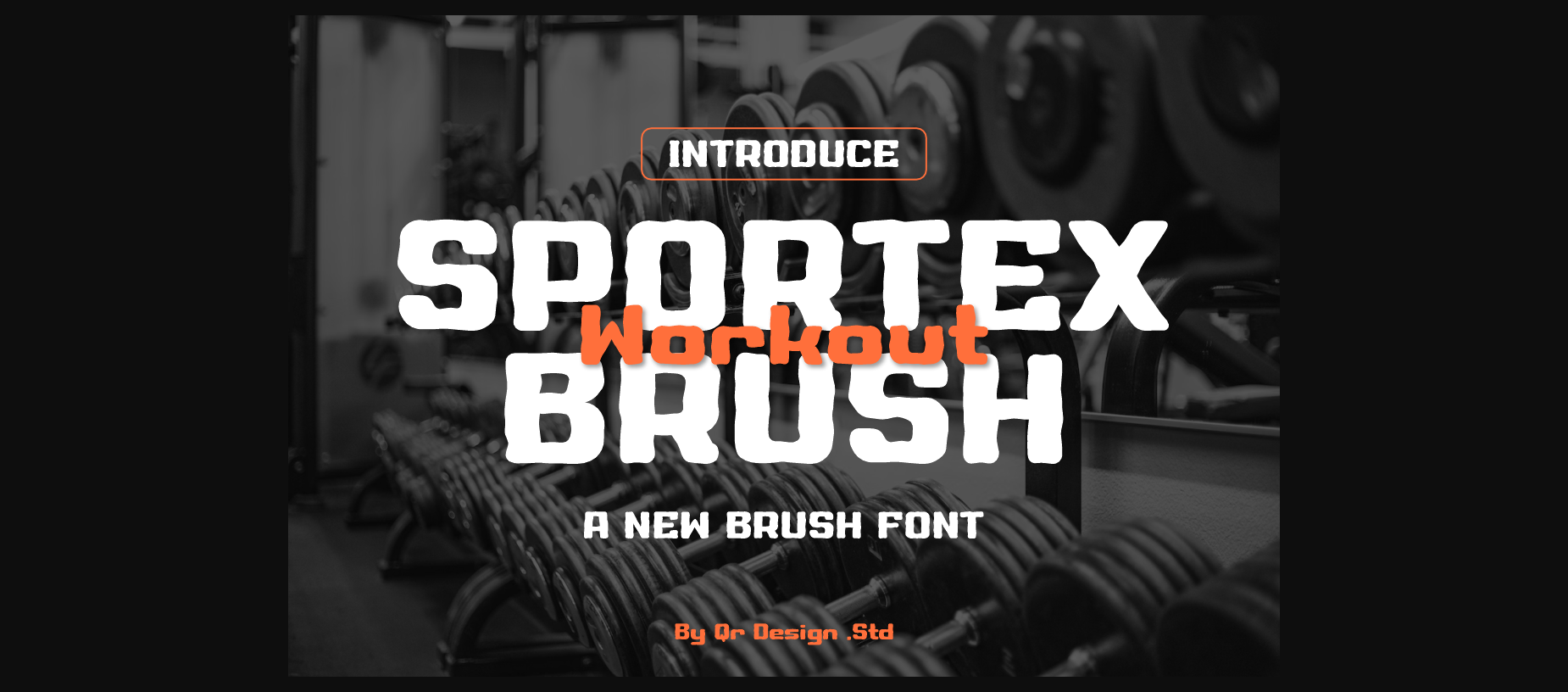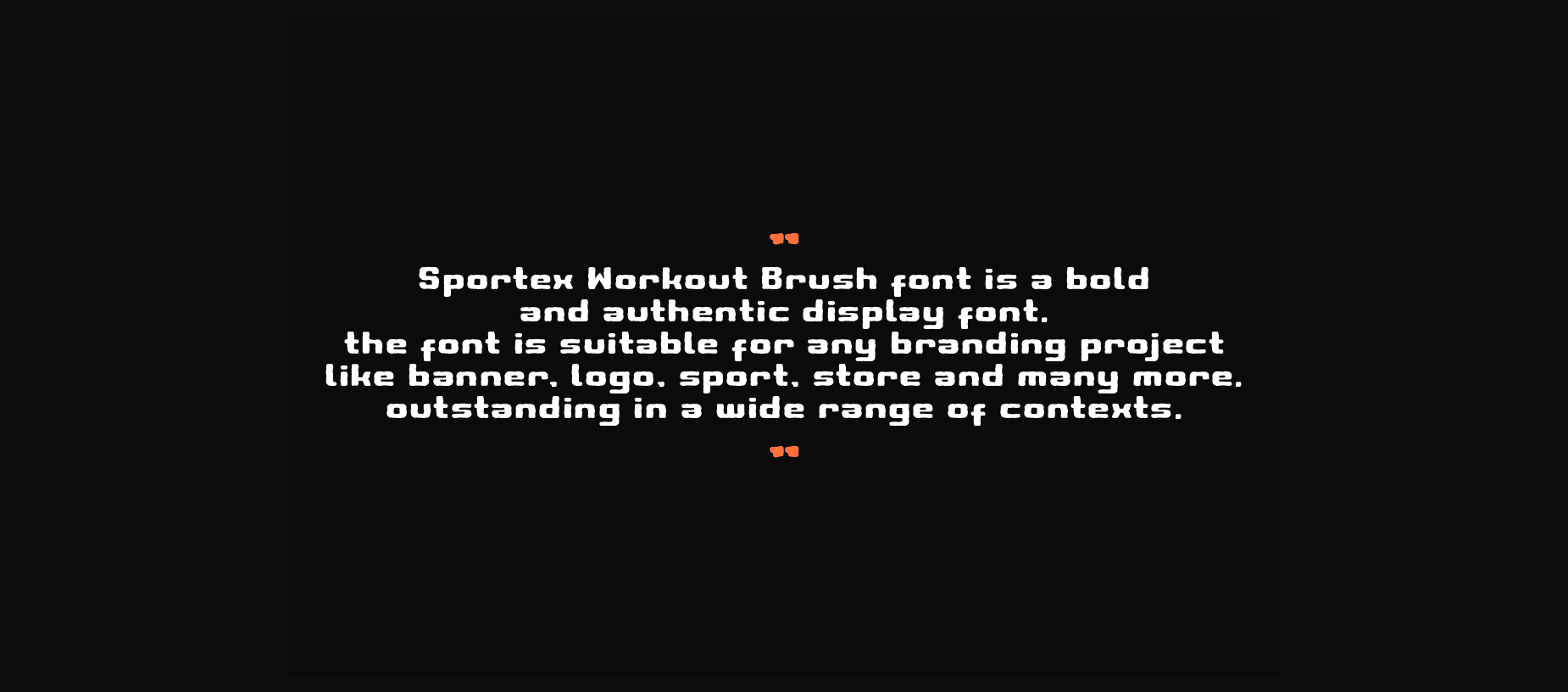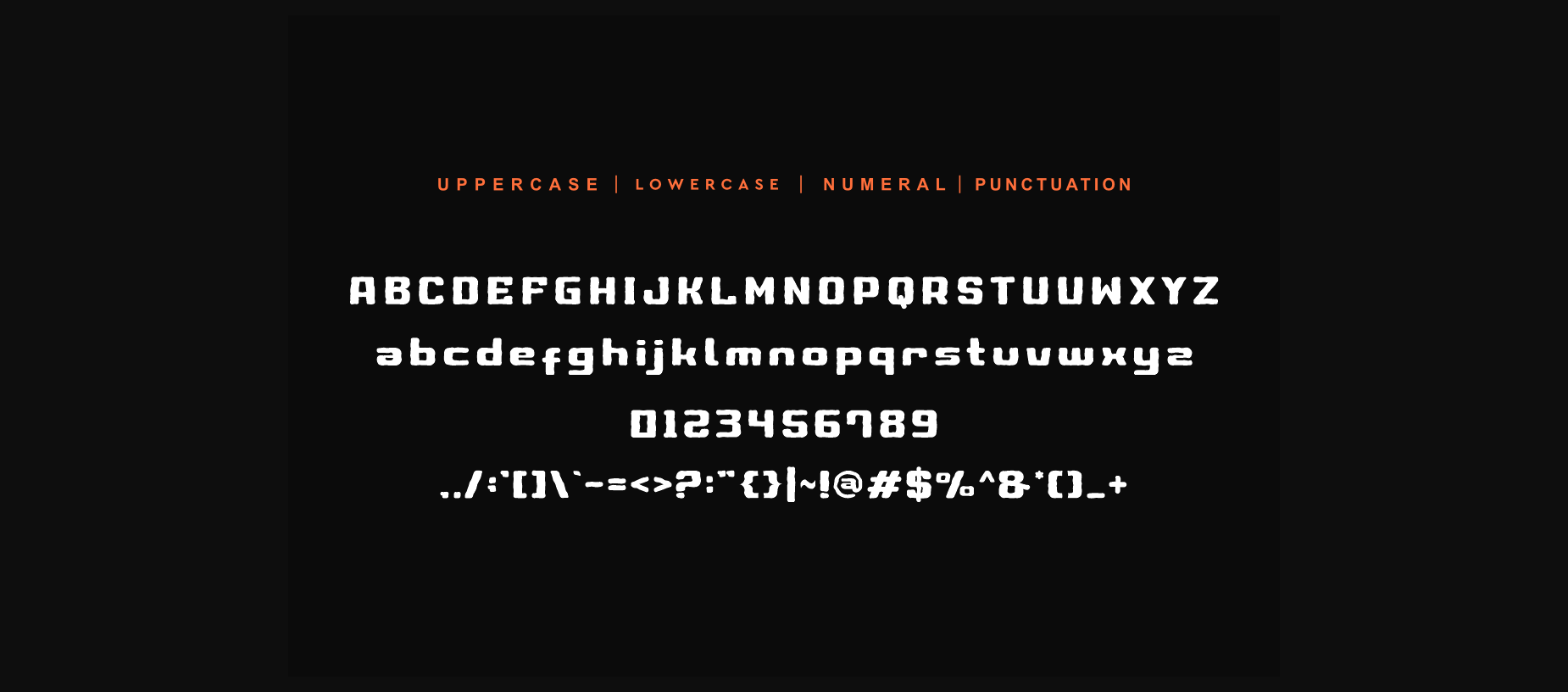
Sportex Workout Brush Font
About Sportex Workout Brush Font
Sportex Workout Brush is a bold, all caps sans serif font featuring the perfect amount of trendiness. Whether you’re using it for crafting, digital designing, presentations or greeting cards making, it’s perfect!